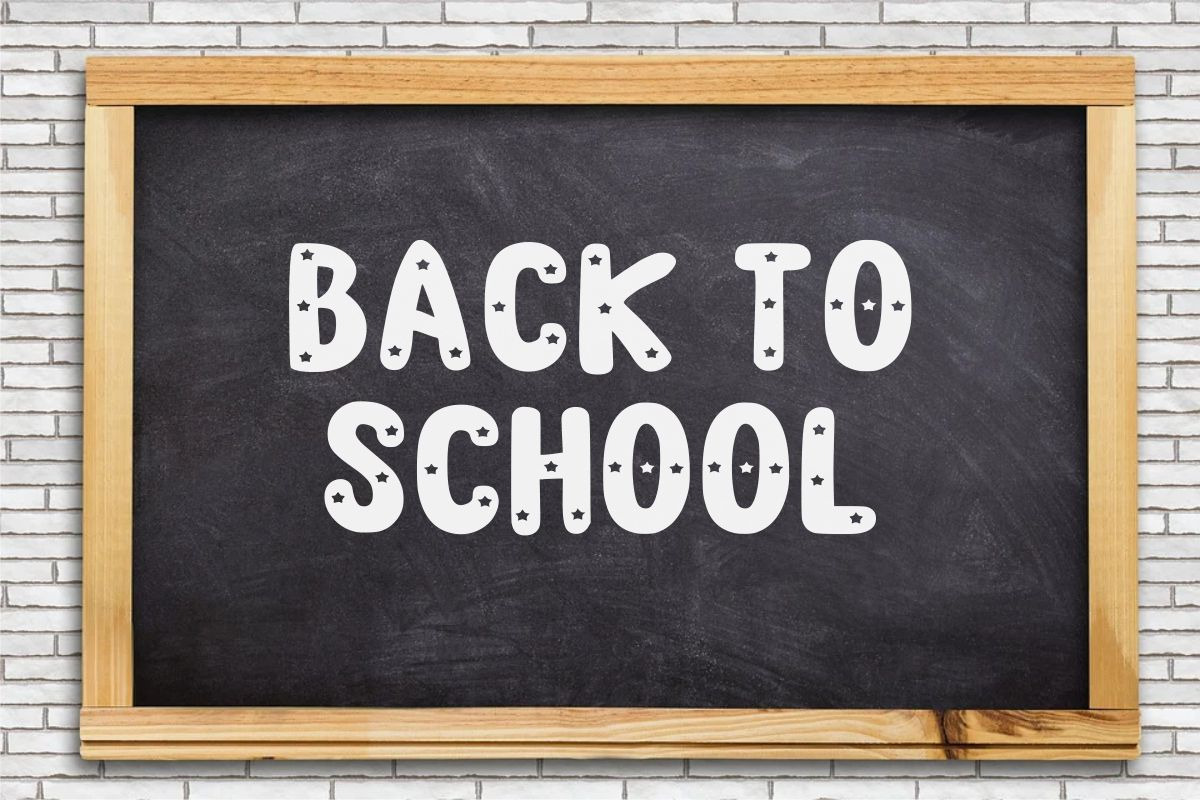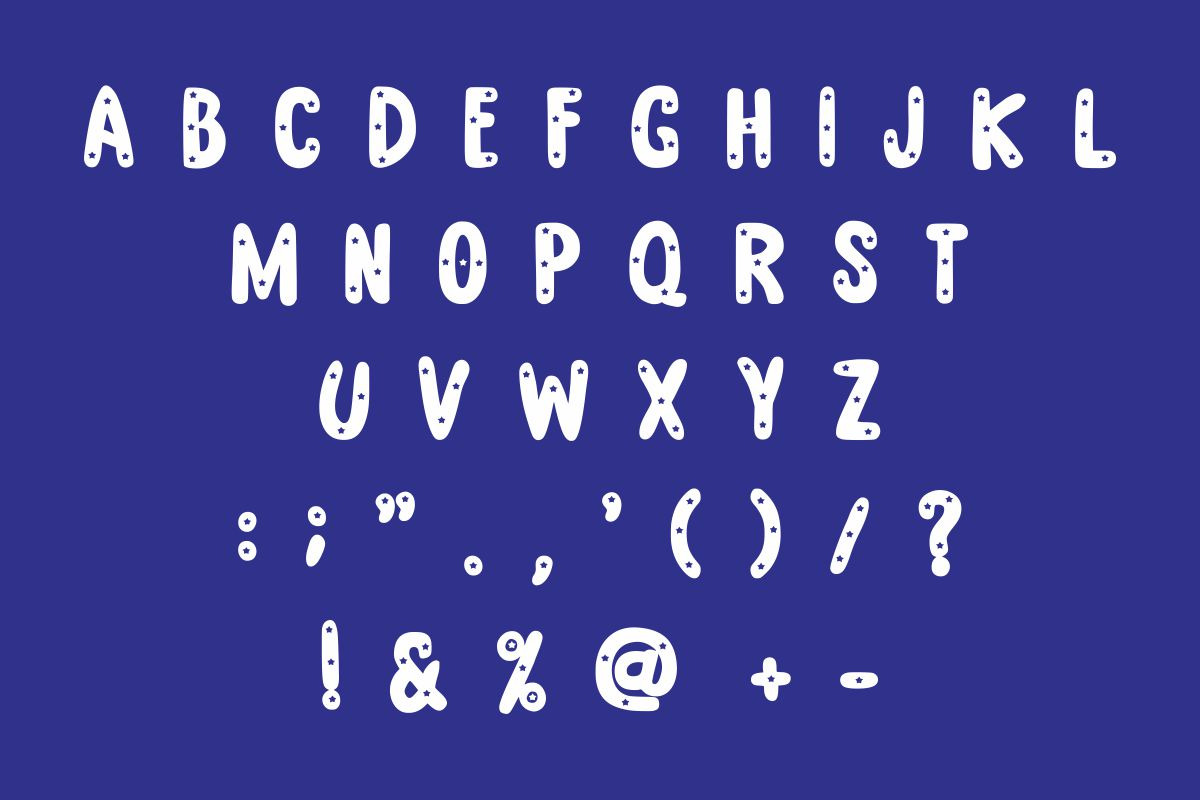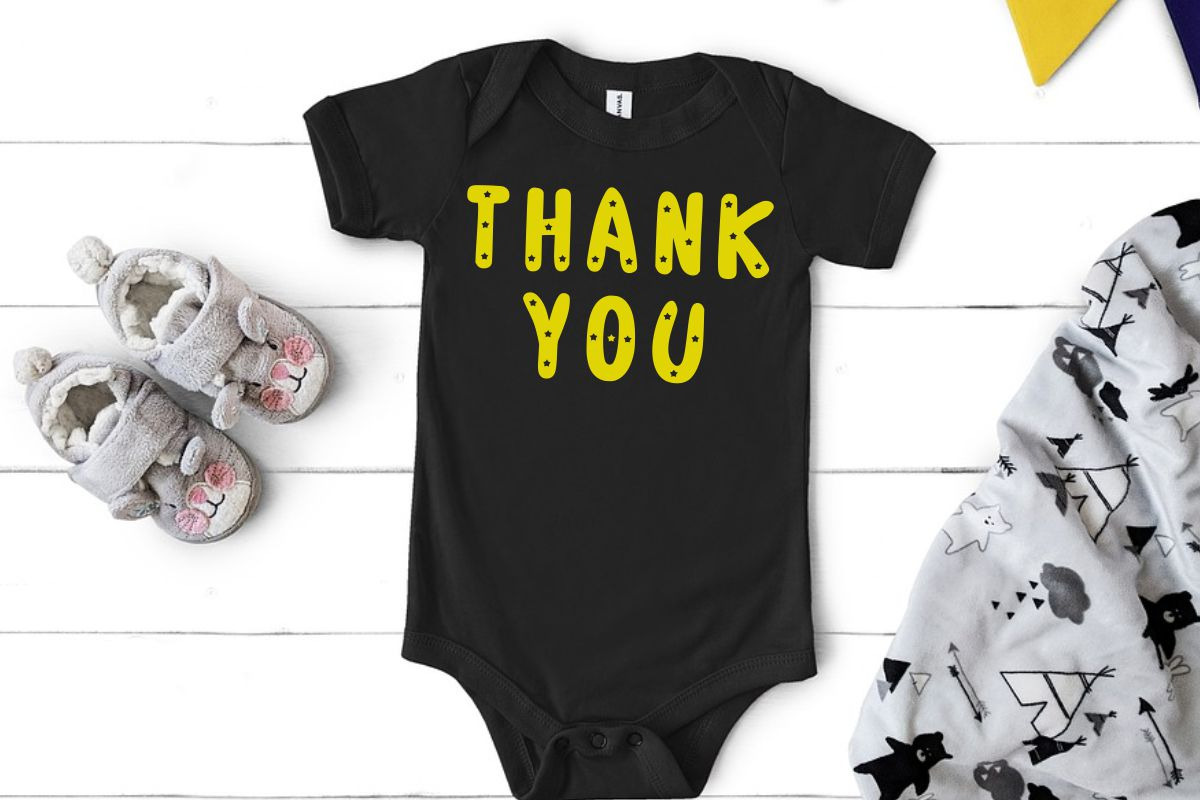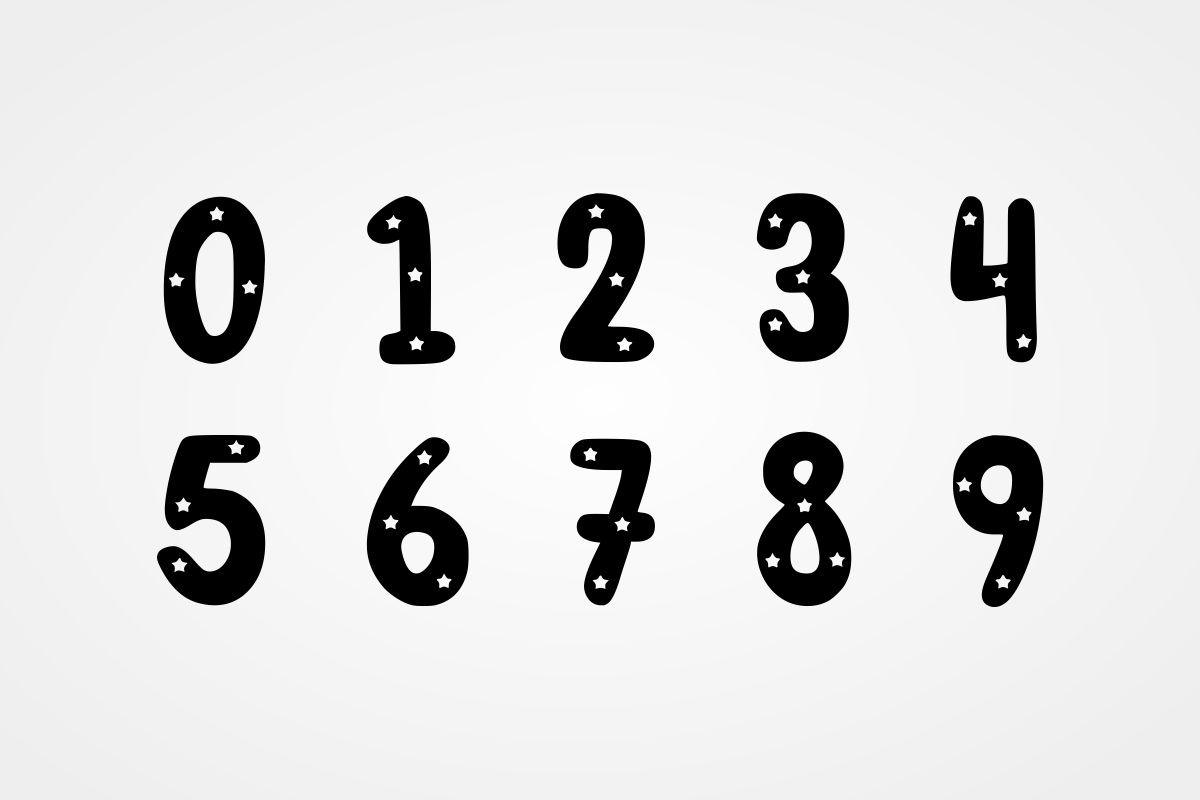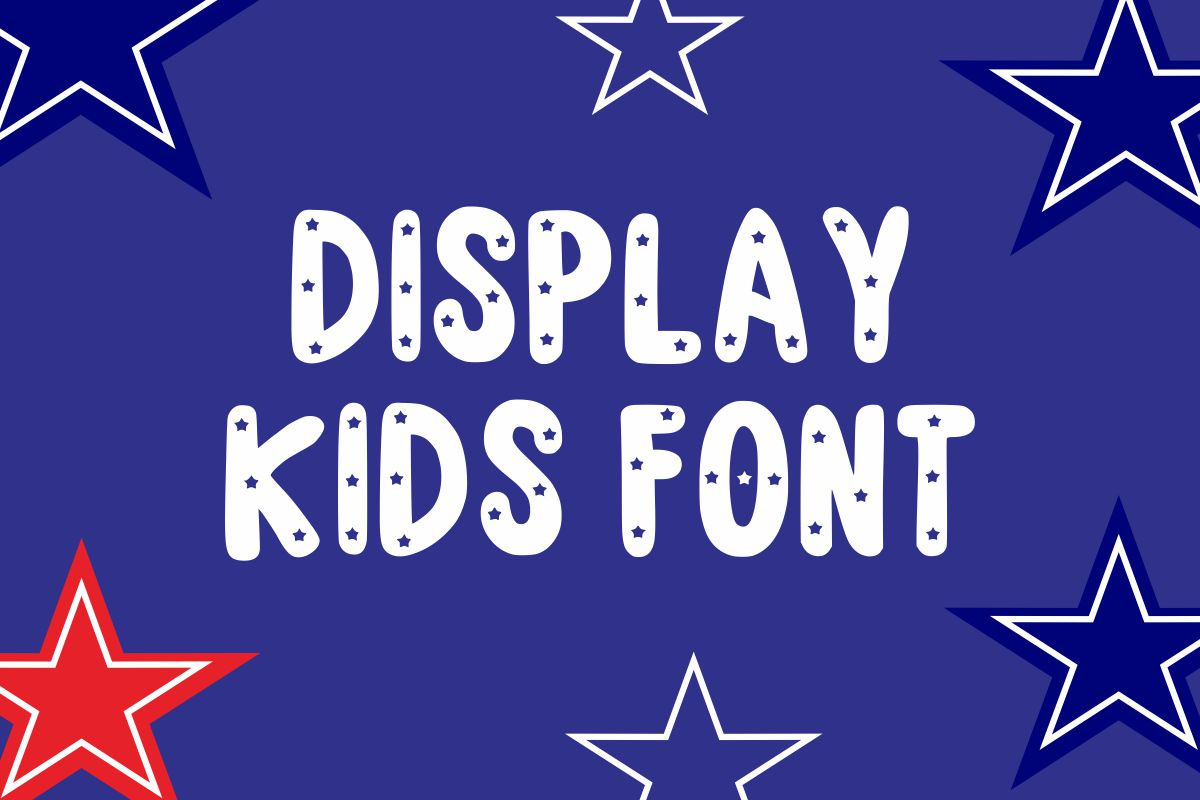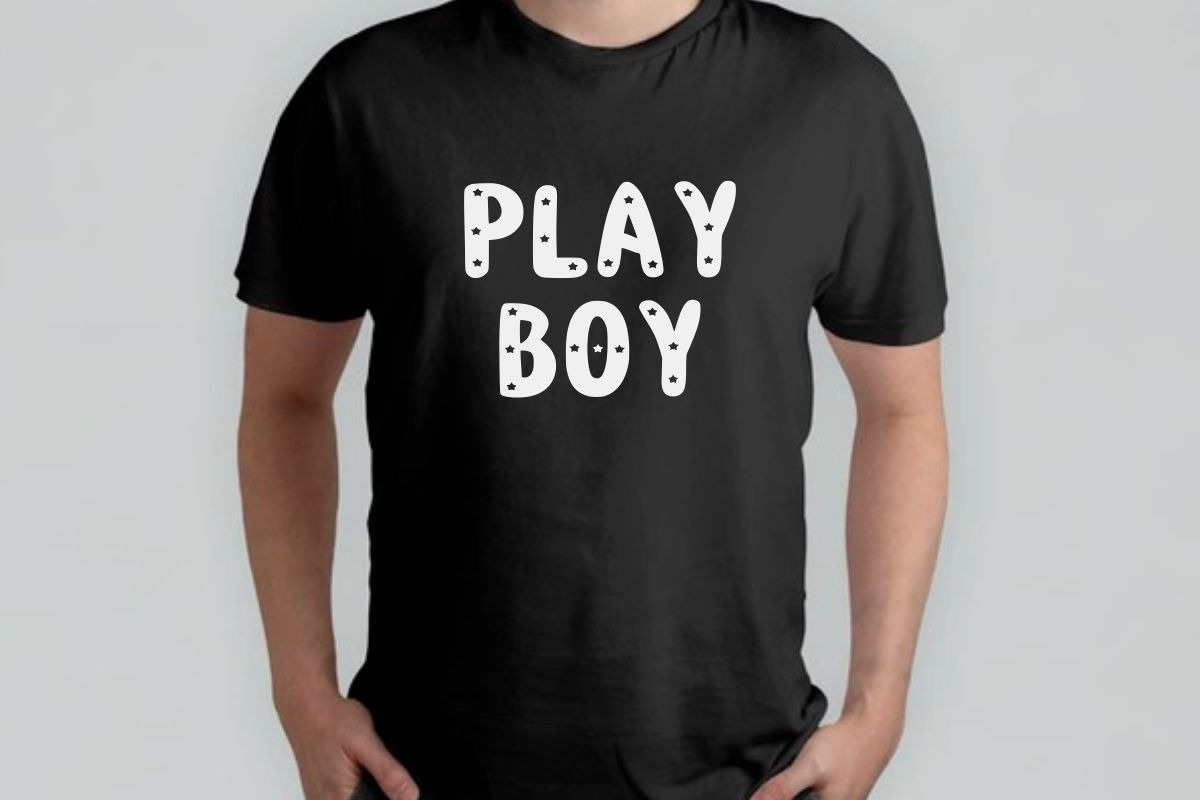
Three Star
Three Star was inspired by playful, bouncy, bold, yet childish vibes. Whether you’re using it for crafts, digital designs, presentations, or making greeting cards, this font has the potential to become your favorite go-to font, no matter the occasion!